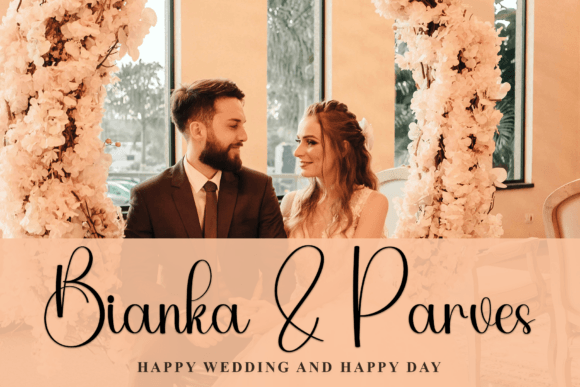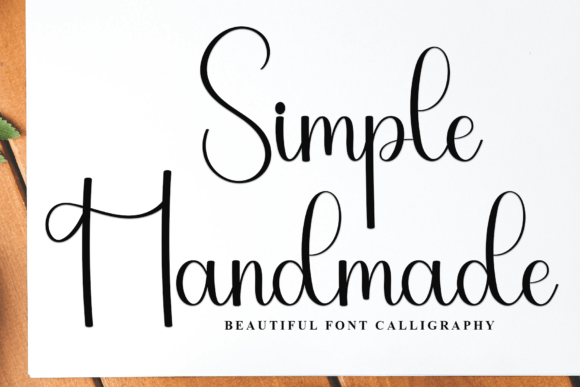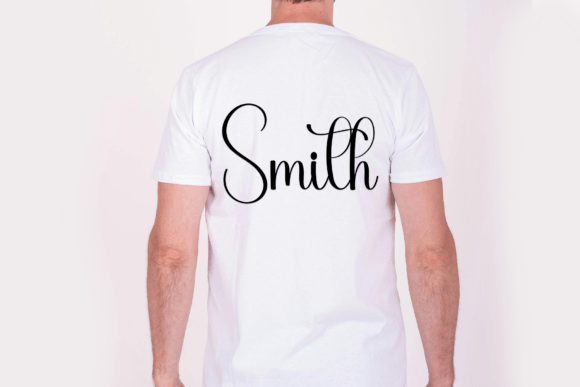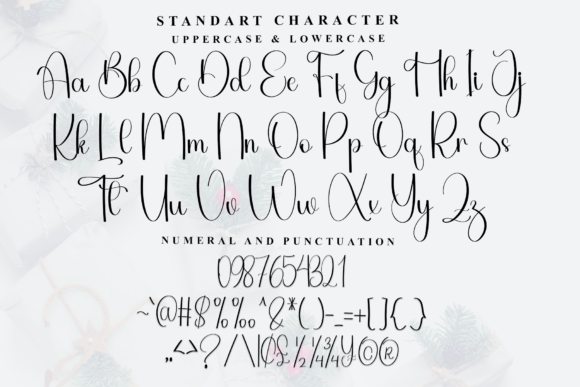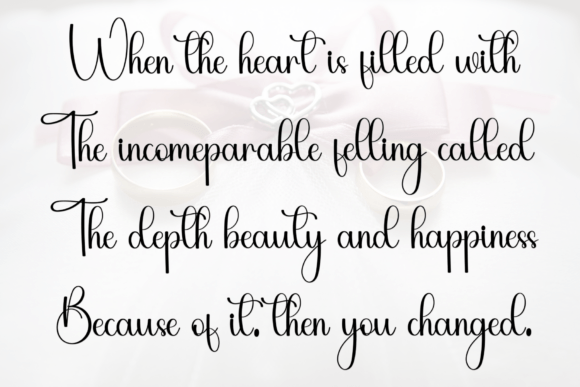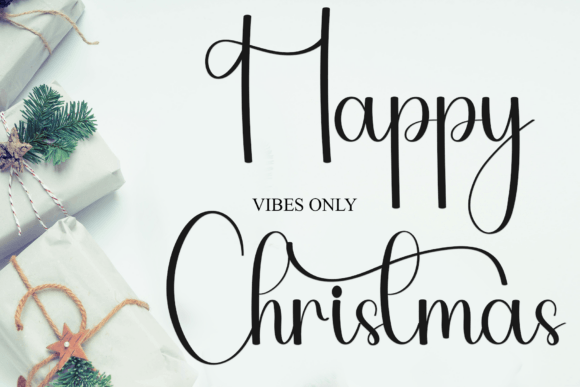
The Perfect Lettering Companion: Unlocking the Beauty of Angelina Beautiful Font
As designers, we’ve all been there – staring at a blank page, trying to conjure up the perfect font to bring our creative vision to life. It’s a moment of pure inspiration, when the right typography can elevate our message and make it truly unforgettable.
Enter the Angelina Beautiful Font, a stylish and elegant typeface that embodies the essence of timeless classic calligraphy. This beautifully crafted font is designed to enhance the beauty of your projects, whether it’s a magazine cover, a wedding invitation, or a social media post. With its balanced and varied design, the Angelina Beautiful Font is a valuable addition to any designer’s toolkit, offering endless possibilities for creativity and self-expression.
Angelina Beautiful Font Key Features
- Unique Characteristics: Elegant script, cursive style, swashes and flourishes for a beautiful, handwritten look
- Font Style: Script, Cursive, Handwritten
Angelina Beautiful Font Review
I recently had the chance to work with the Angelina Beautiful Font, and I must say it’s a unique and captivating font. ✨ It’s perfect for projects that require a touch of elegance and sophistication. The font’s script-like curves and flourishes add a sense of luxury to any design.
Here are some of the things I like about the Angelina Beautiful Font:
- ✨ Beautiful, intricate details that add a sense of depth and character to the font
- ✨ Elegant and refined, perfect for high-end branding and design projects
- ✨ Excellent for use in titles, headings, and other display text
- ⚠️ The font can be quite busy and overwhelming in large blocks of text
- ⚠️ May not be the best choice for digital screens, as the fine details can be difficult to read at smaller sizes
- ⚠️ Not ideal for use in body text or large paragraphs
Overall, I think the Angelina Beautiful Font is a great addition to any designer’s toolkit. It’s perfect for special occasions or projects that require a touch of glamour and sophistication. However, it’s essential to use it judiciously and consider its limitations when selecting a font for your design.
The Angelina Beautiful Font is ideal for:
- Printable art and quotes
For optimal results, use the font in combination with elegant and cursive designs.
Alternatives to “Angelina Beautiful Font” for Designers
Great Vibes Font is a beautiful, elegant script font that is perfect for creating a luxurious and sophisticated look. It is ideal for use in wedding invitations, greeting cards, and other special occasion designs. Great Vibes Font has a more fluid and dynamic feel compared to Angelina Beautiful Font, which makes it suitable for designs that require a lot of movement and energy.
Alex Brush Font is a high-end, handwritten font that is designed to resemble a brush stroke. It is ideal for use in designs that require a personal and unique touch, such as branding, logos, and marketing materials. Alex Brush Font has a more organic and natural feel compared to Angelina Beautiful Font, which makes it suitable for designs that require a lot of character and personality.
Pacifico Font is a beautiful, elegant script font that is inspired by the Pacific coast of Mexico. It is ideal for use in designs that require a relaxed and laid-back feel, such as beach-themed designs, travel brochures, and restaurant menus. Pacifico Font has a more casual and approachable feel compared to Angelina Beautiful Font, which makes it suitable for designs that require a lot of warmth and hospitality.